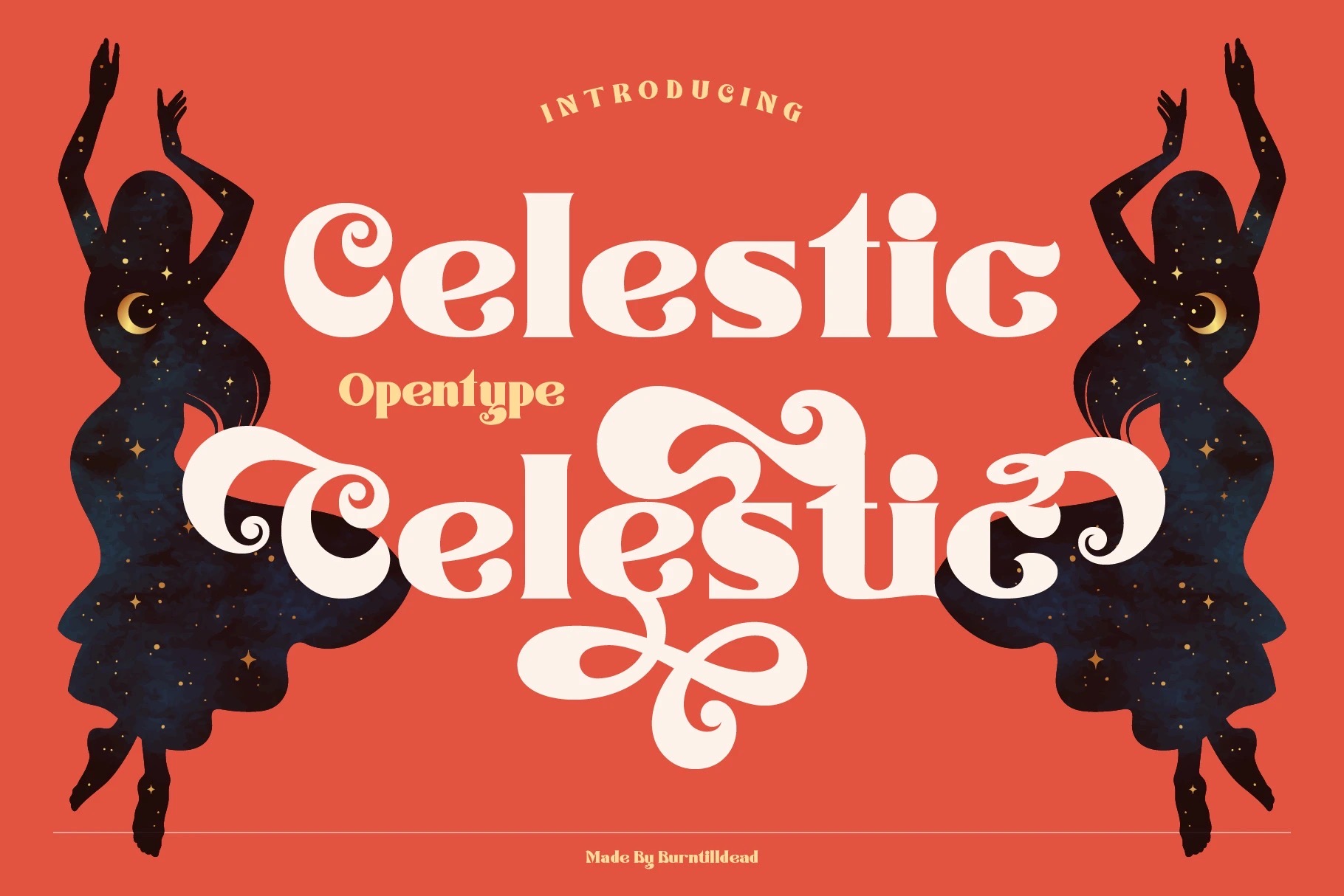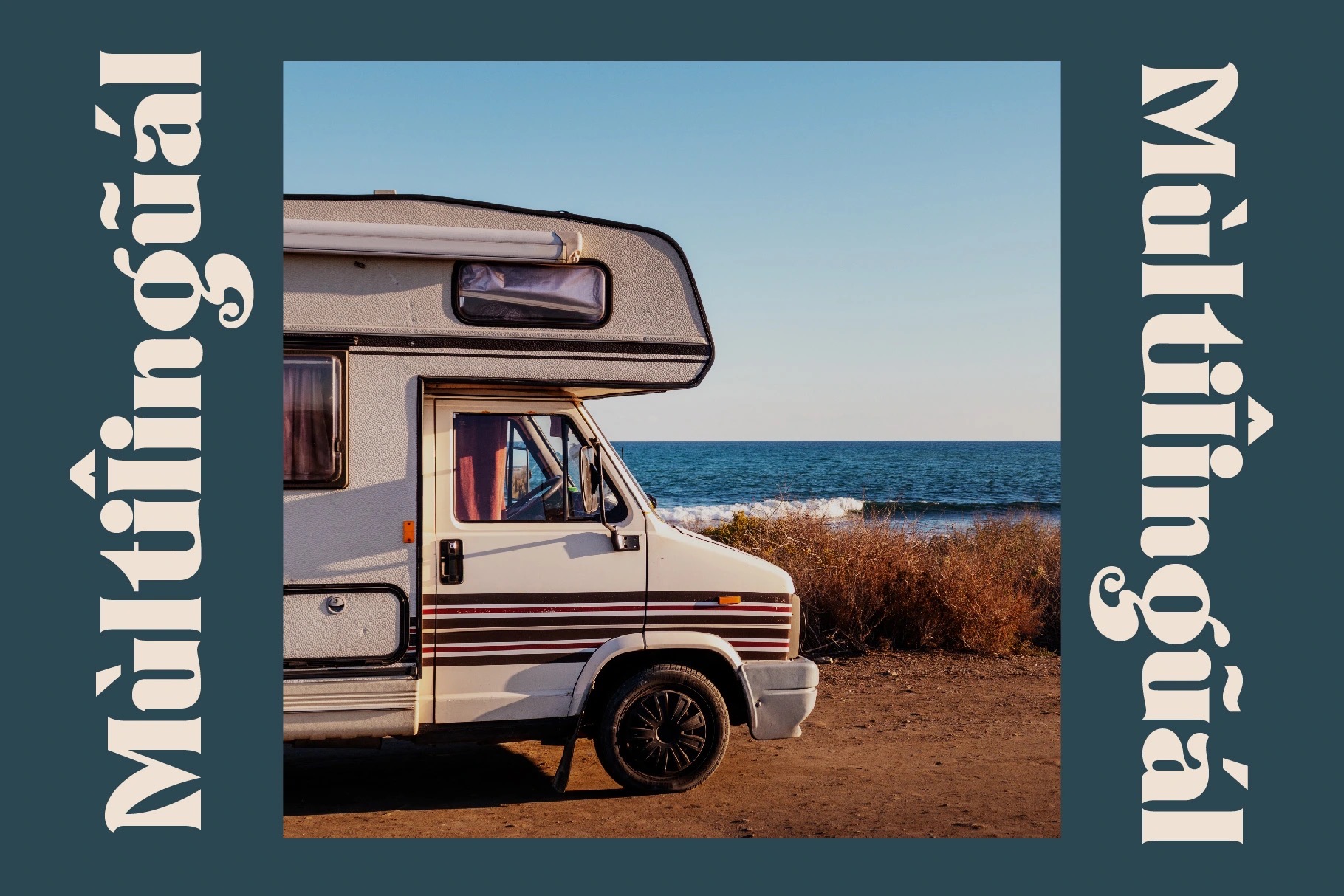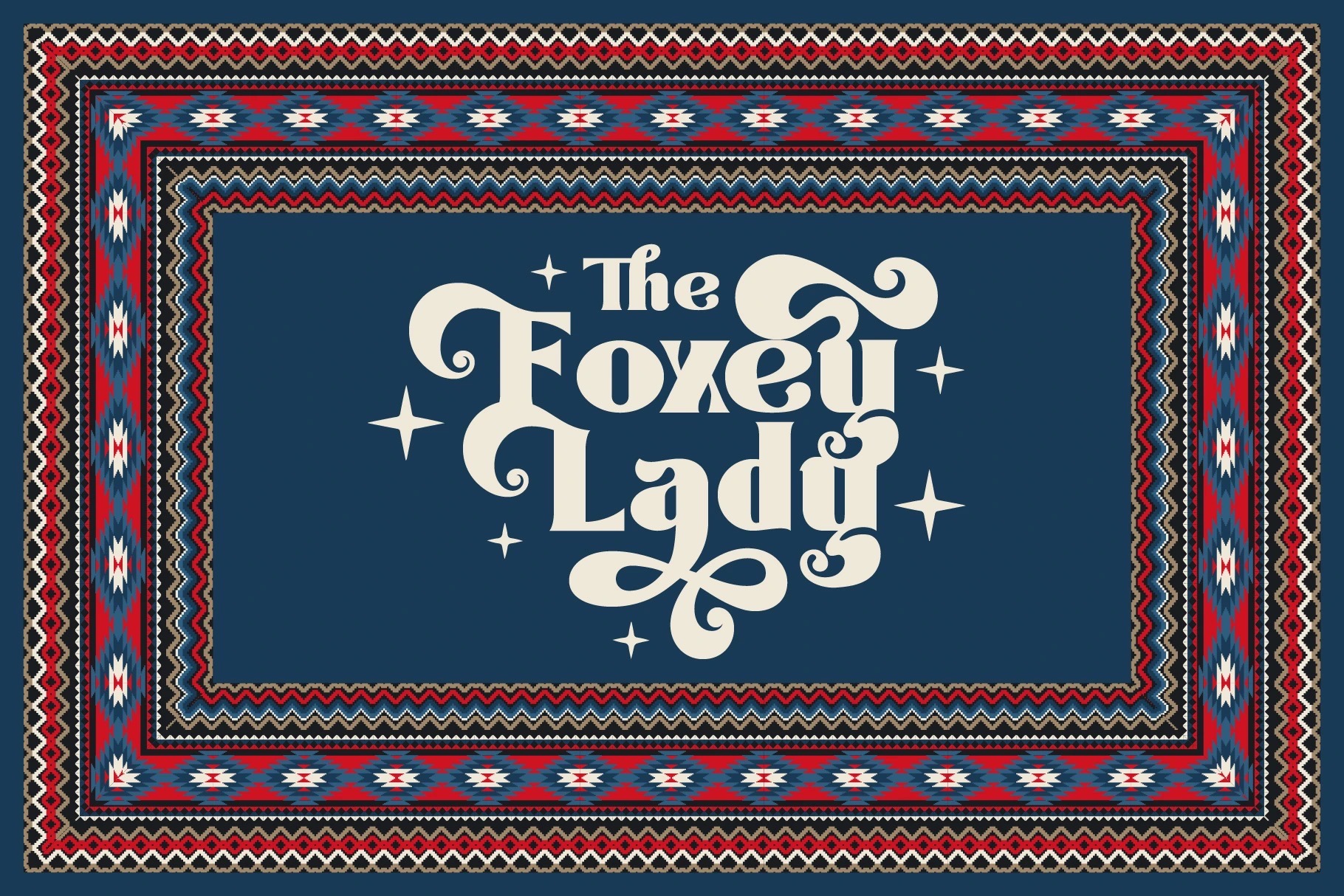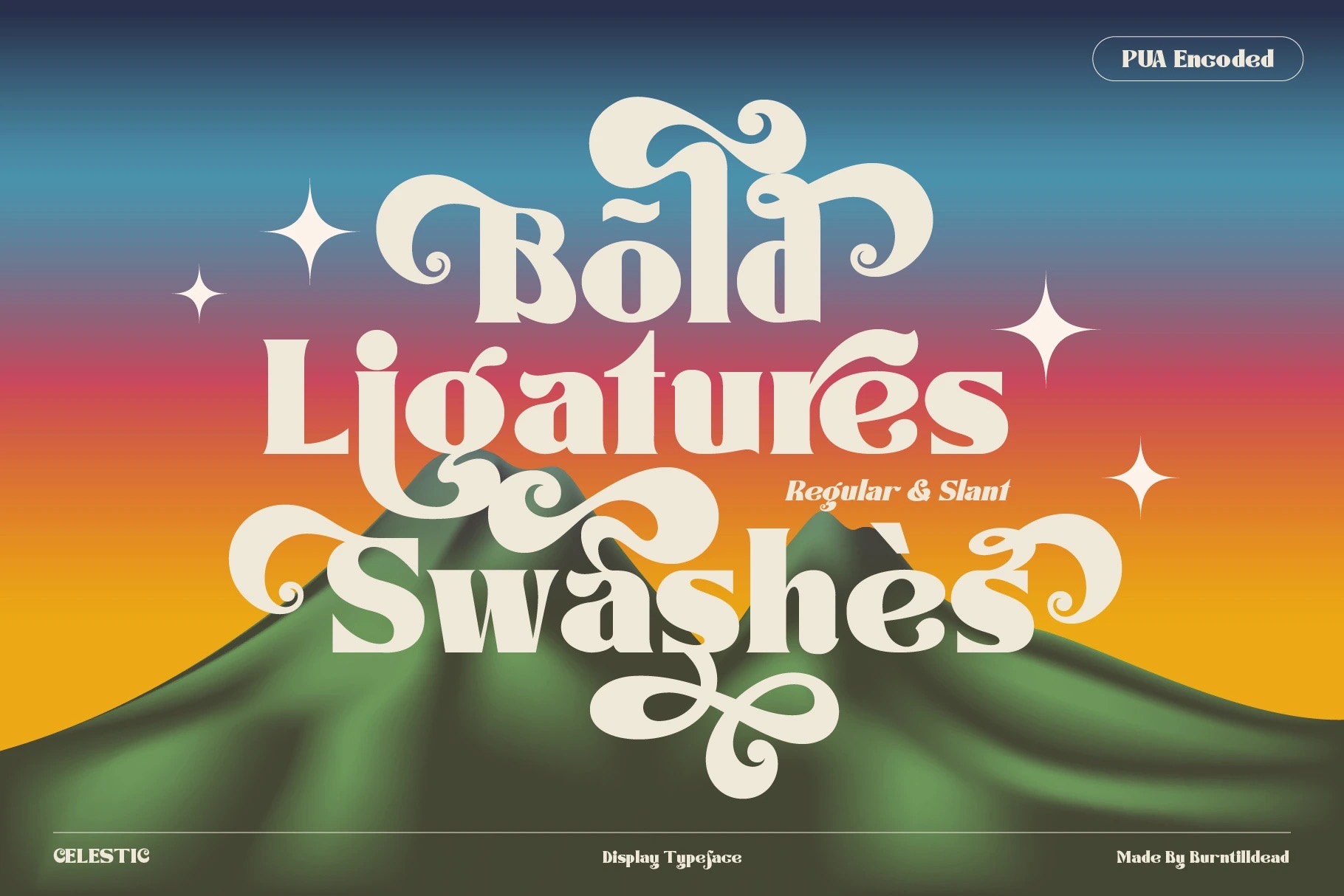
- Celestic
Say hi to “Celestic” typeface. Inspired by the classic 60’s design styles, a decade of bold and swashes styles.
This font is very easy to use with hundreds of stylistic alternate (ss01-ss07), ligatures & powered with opentype feature.
The font really bring a good statement for your logo design and can be the image of a design.